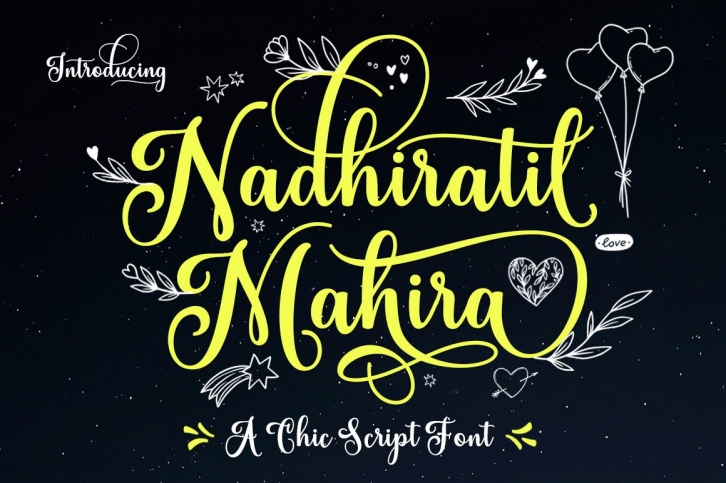
Nadhiratil Mahira is a beautiful font that was designed by MonoLine Calligraphy. It's a great choice for designers and creatives who need such a font. It was released on September 5, 2021 and the file size is 18.18 MB. Nadhiratil Mahira may give a more youthful, expressive and casual look to your project. It is a very beautiful, refined, elegant, and high-quality font.